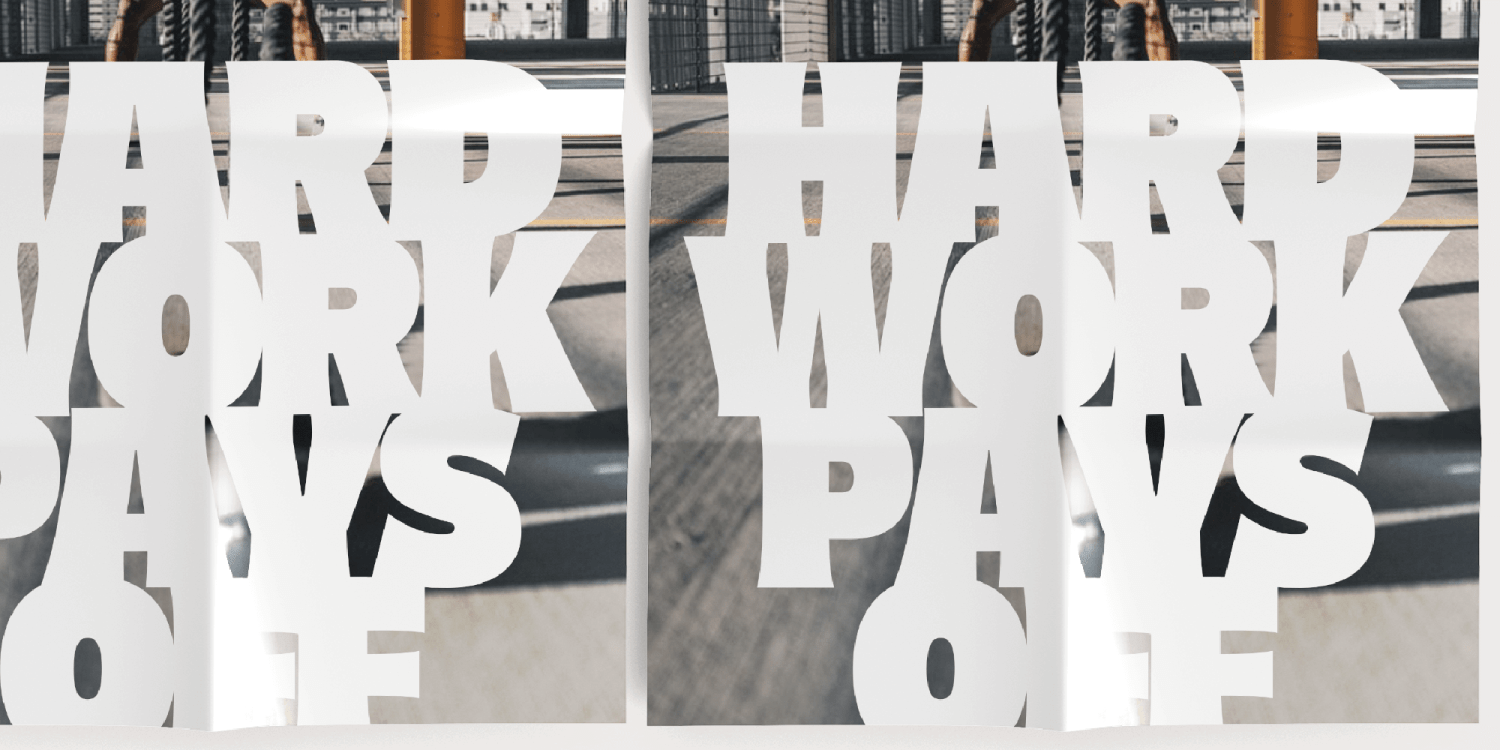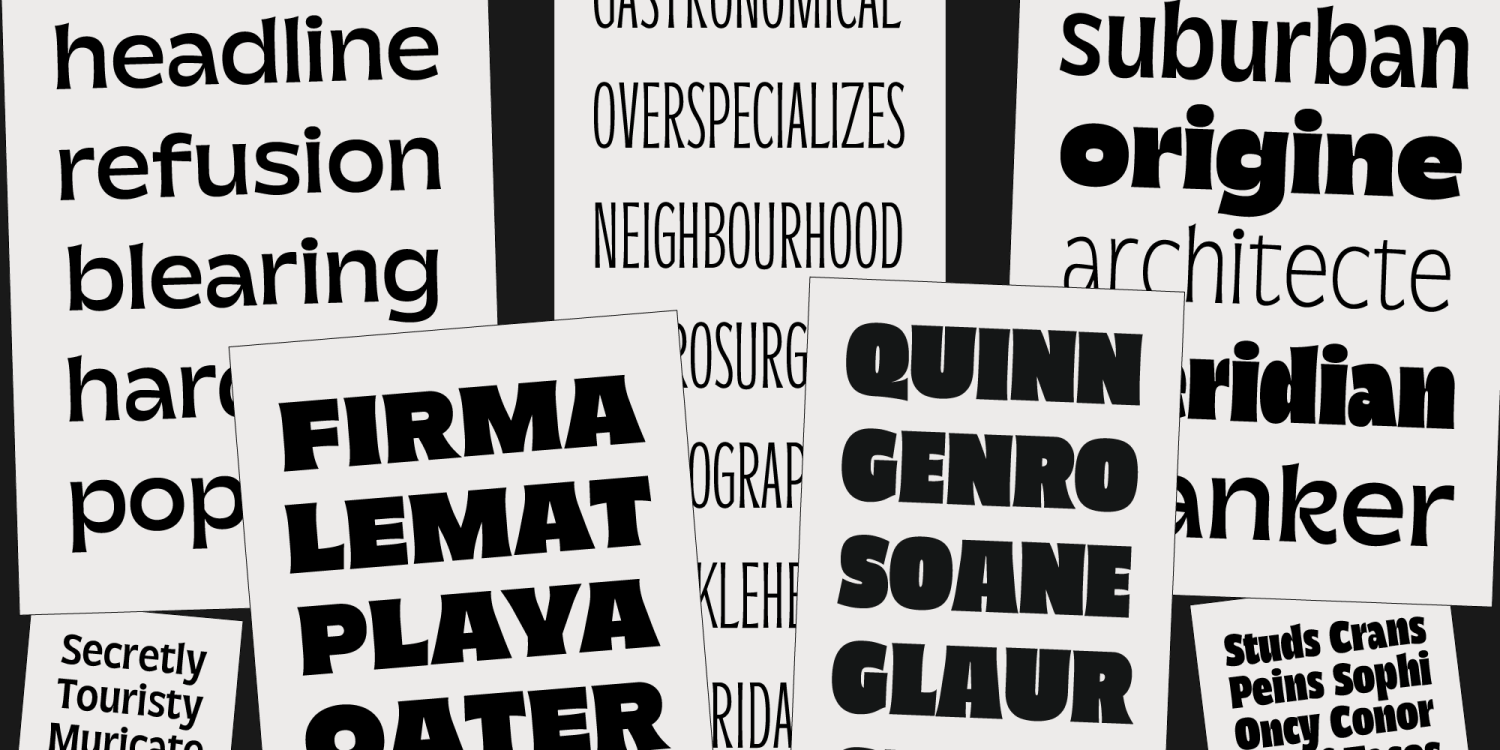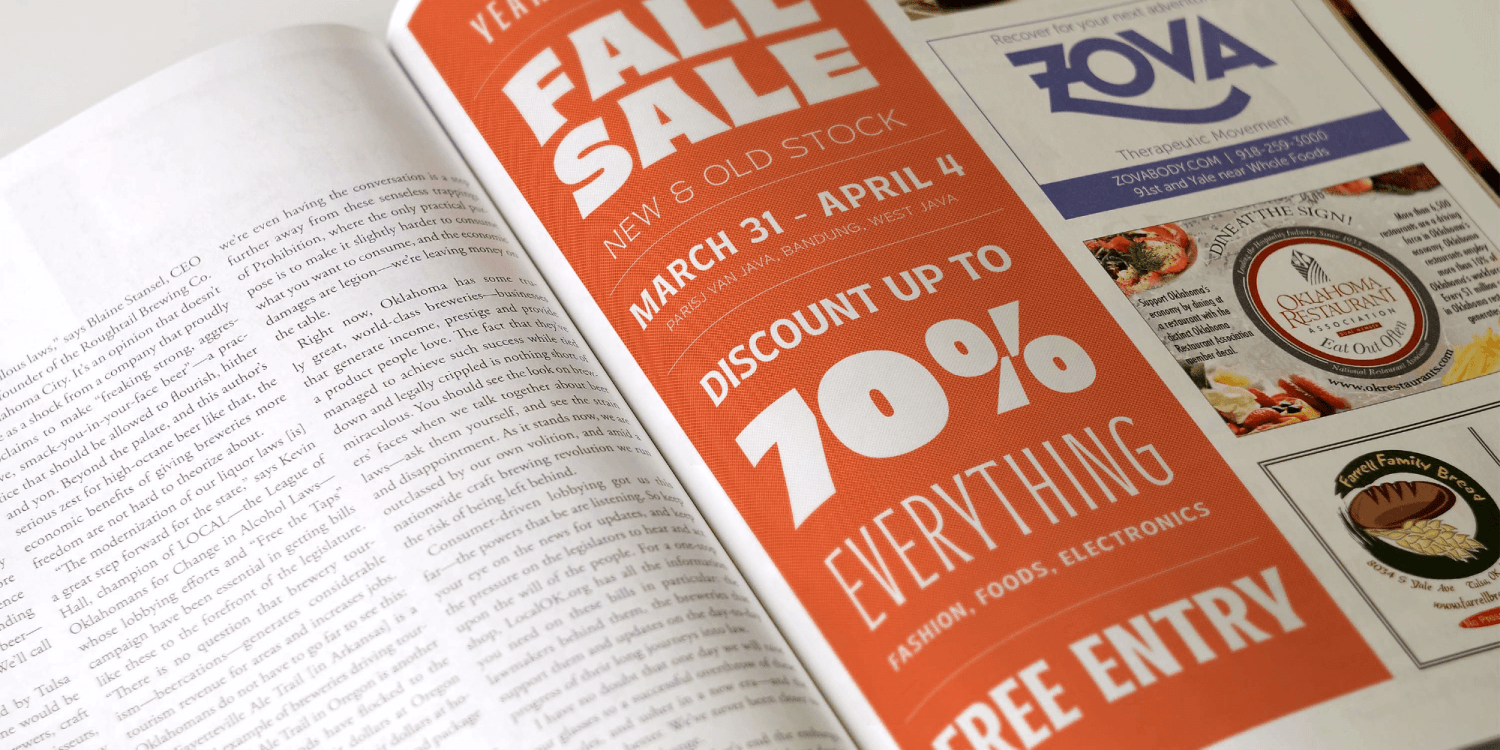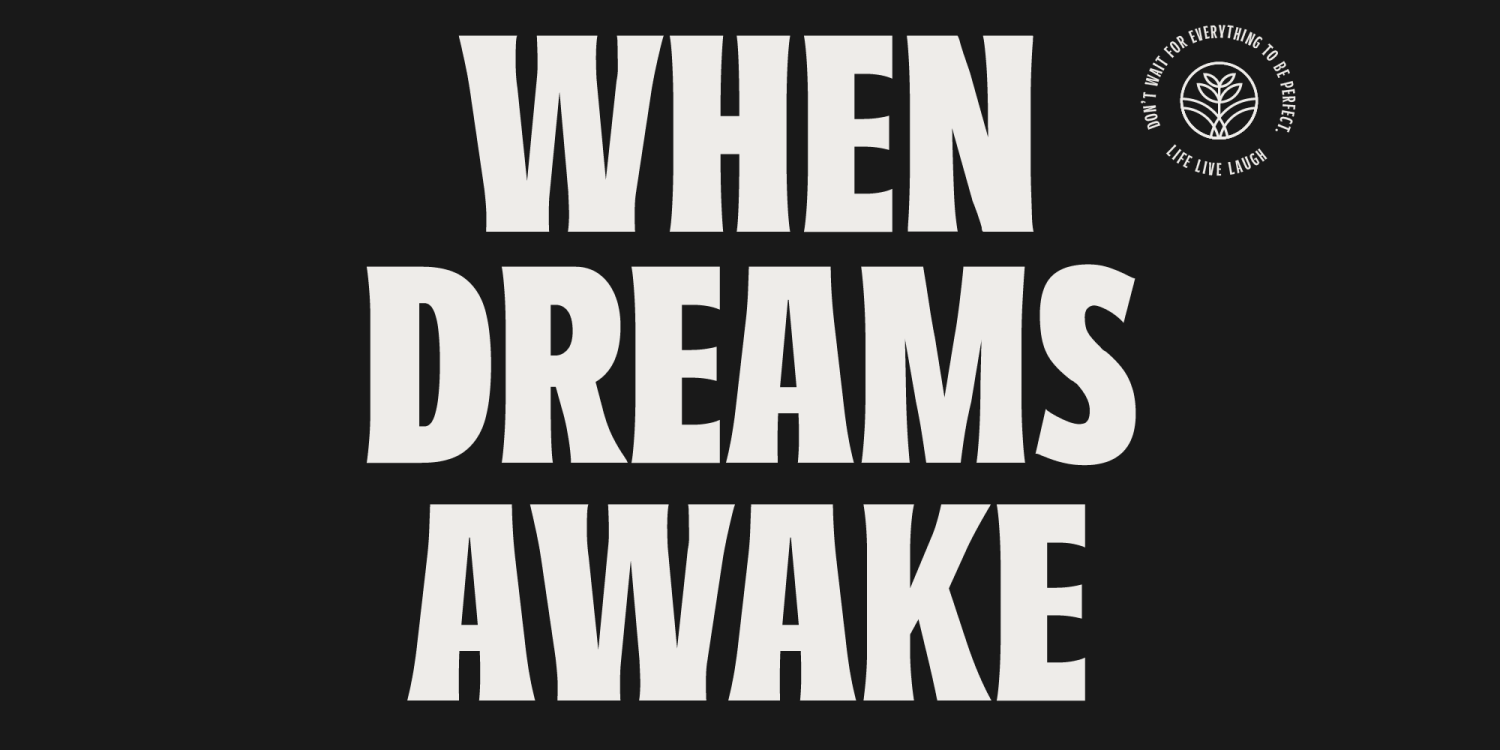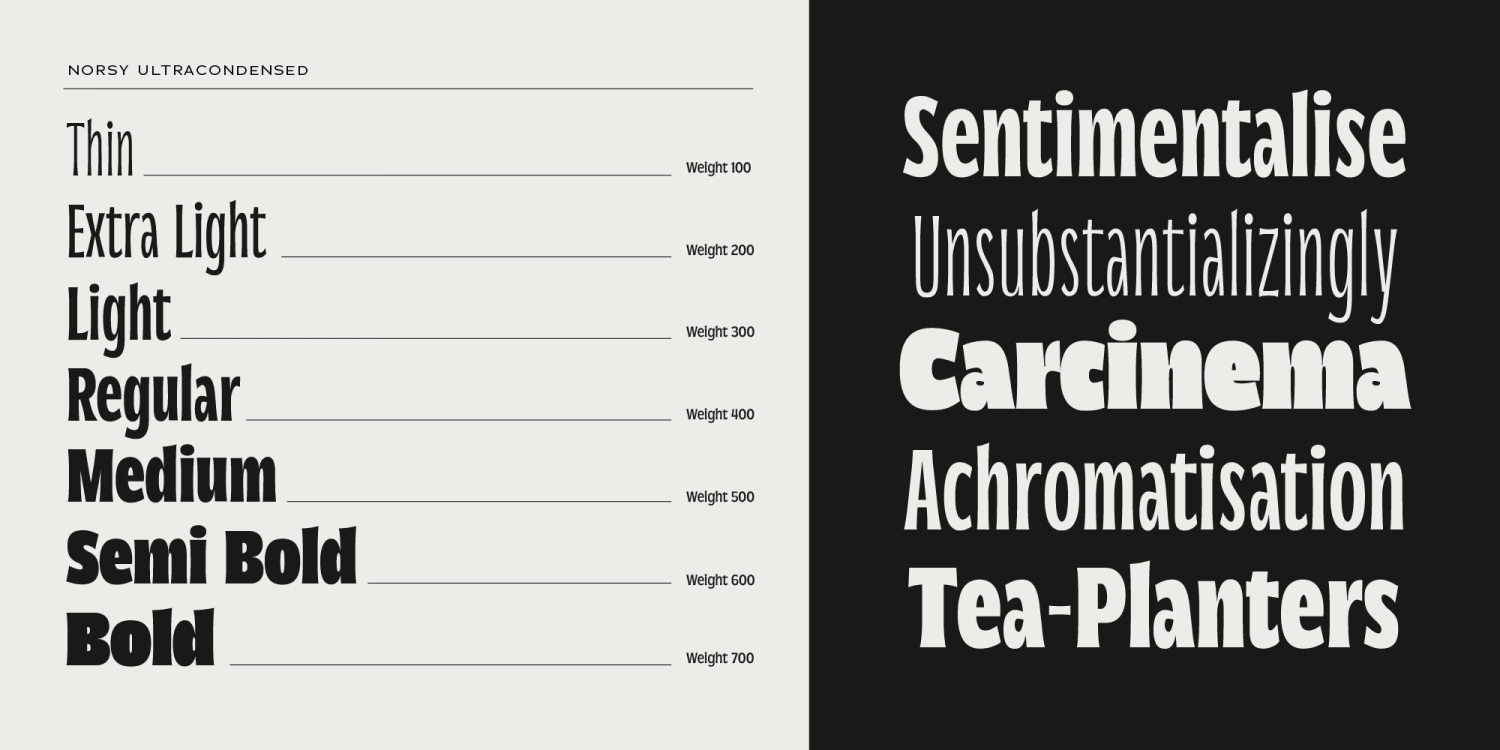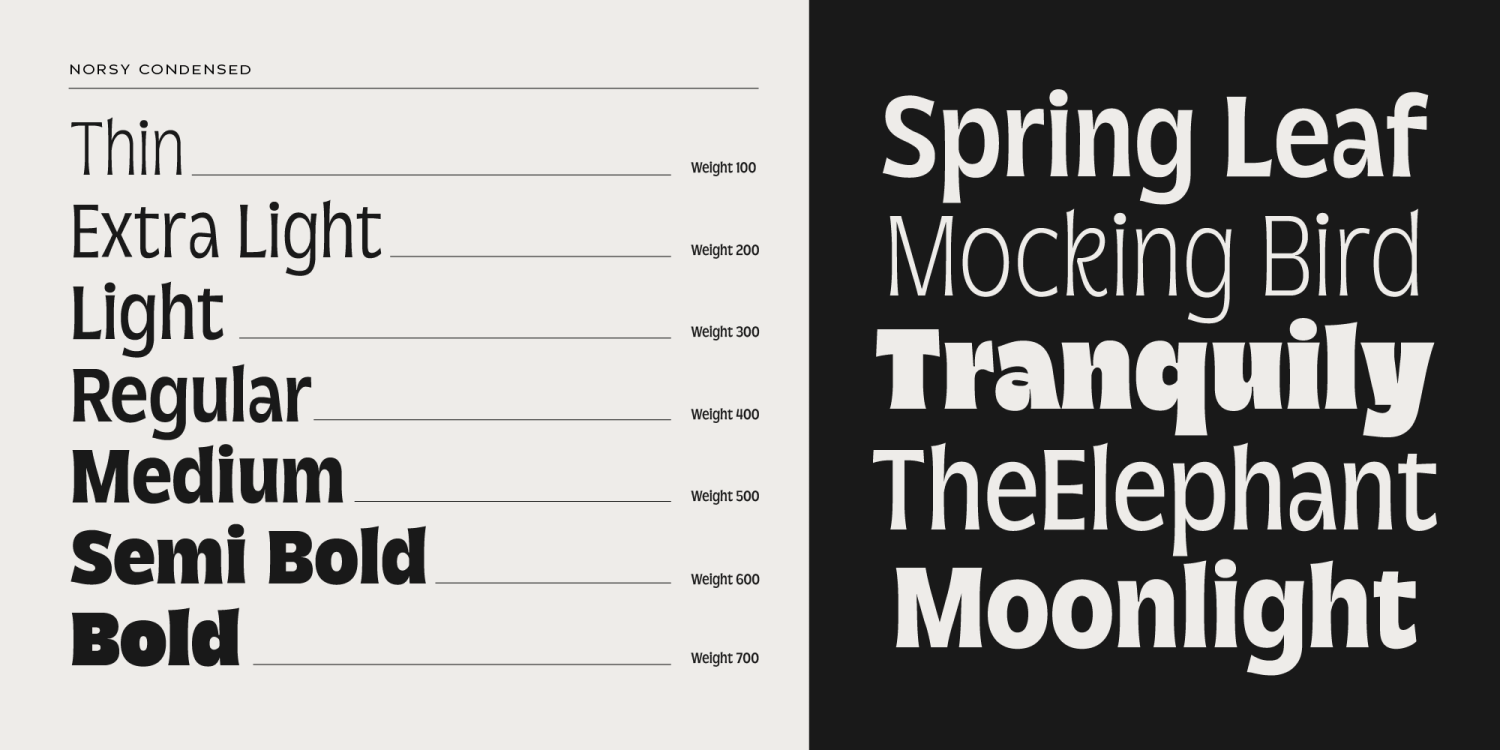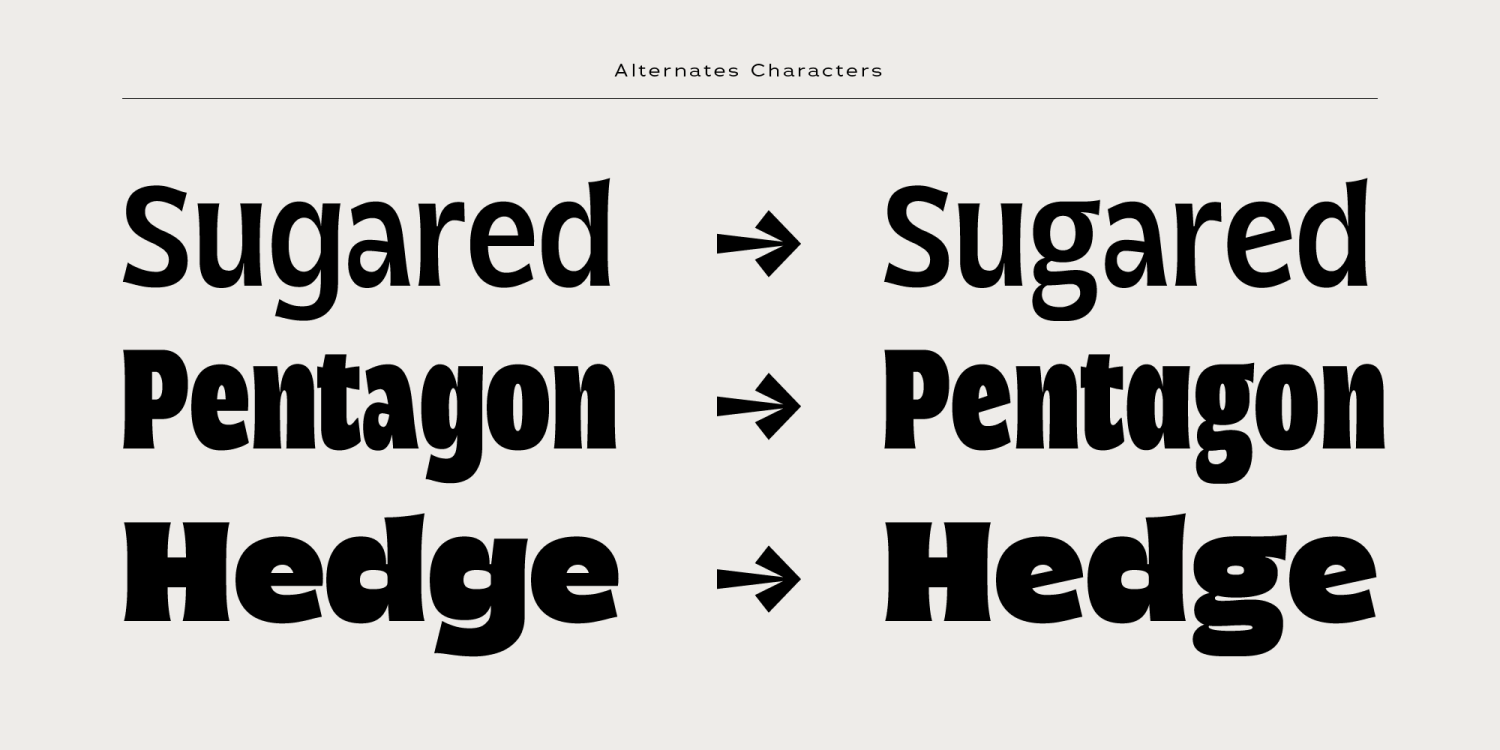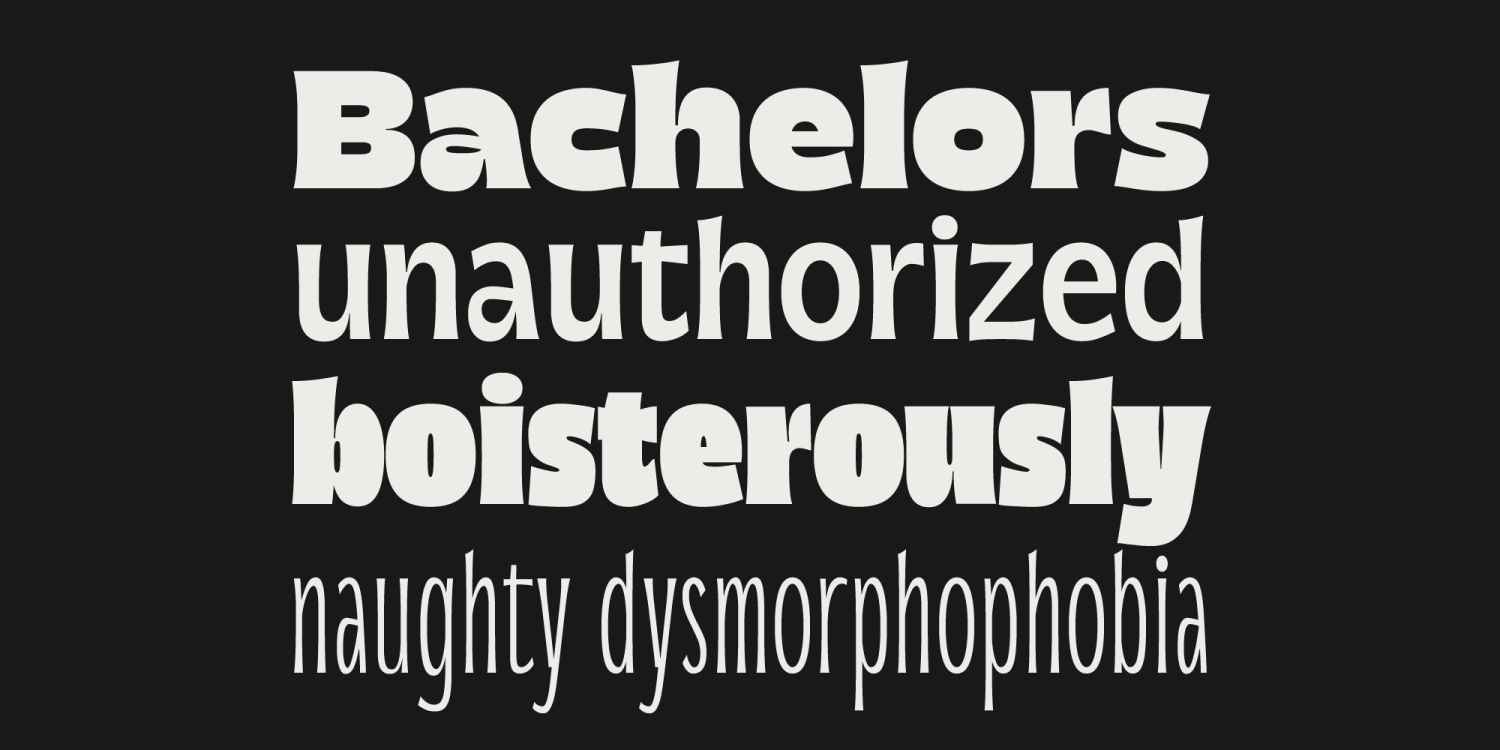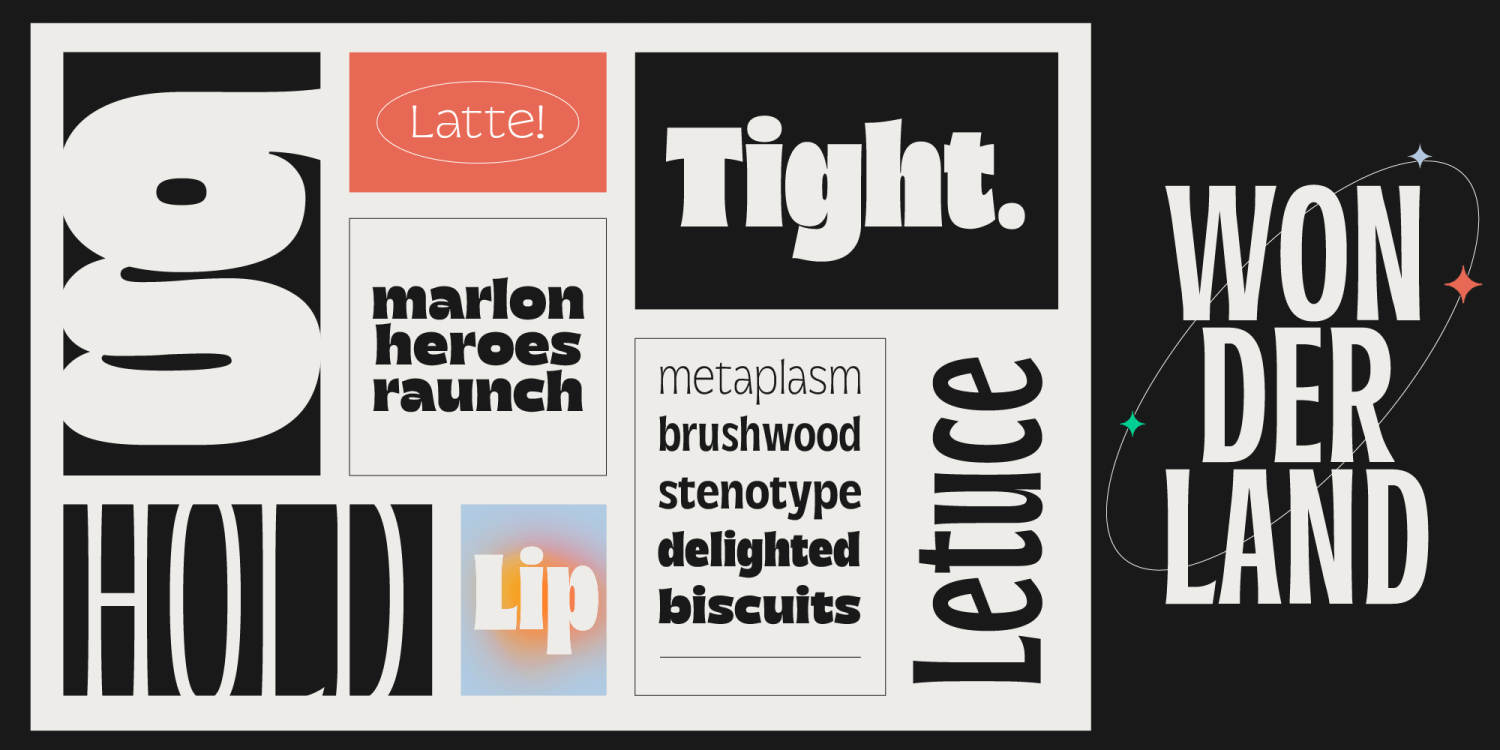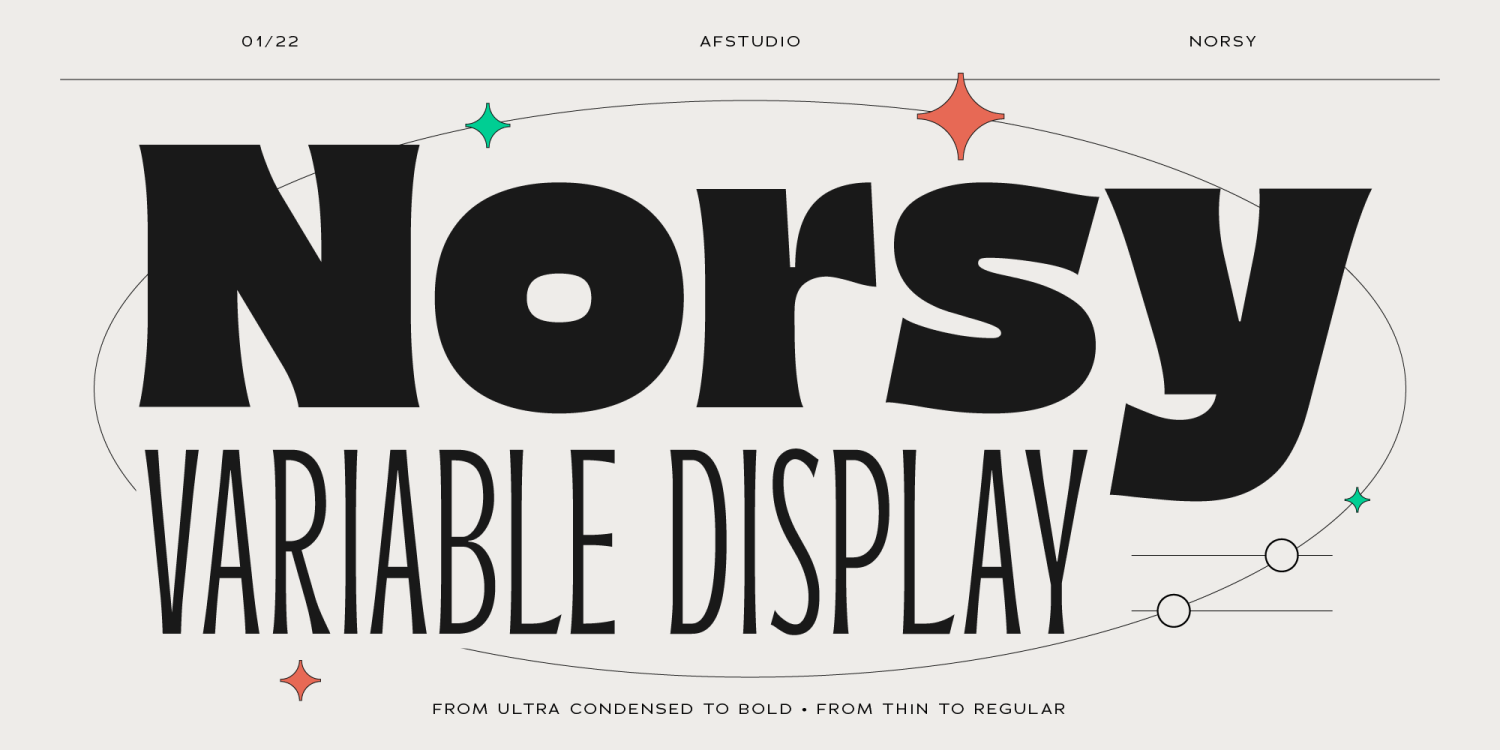
Norsy
Norsy is a modern elegant variable font. Basically this is a Sans with a small touch of serif on every letters. A simple, yet very legible with various width and weight that you can explore, combine, create and help you designing something. In a total…